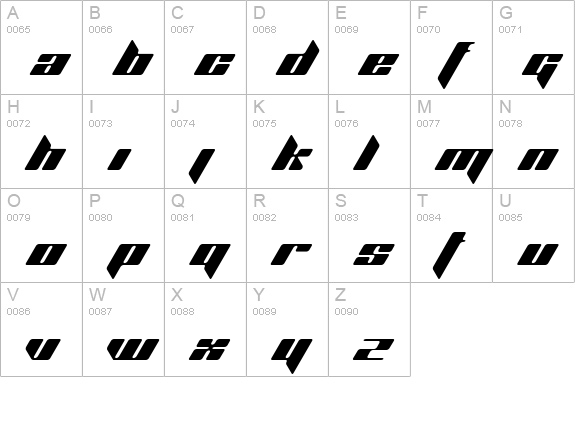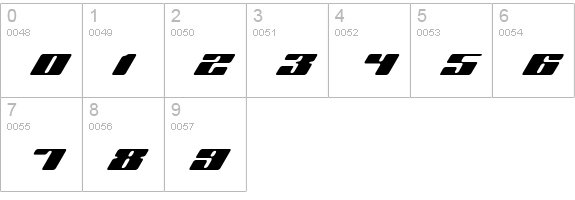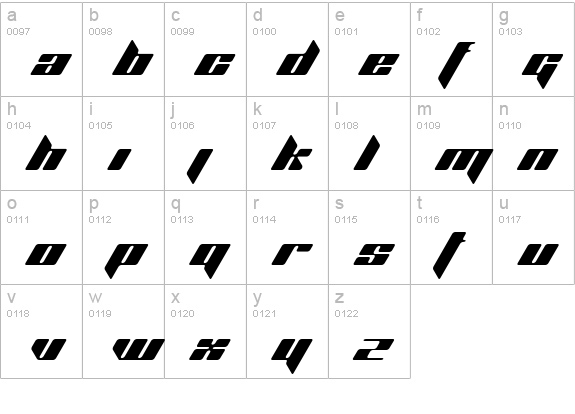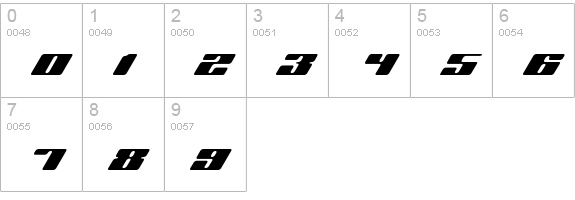
Planet Kosmos is a mesmerizing and futuristic font that will transport you to another dimension. Its sleek and modern design is perfect for projects that require a touch of otherworldly elegance. With its unique letterforms and sharp edges, Planet Kosmos captures the essence of the cosmos, making it ideal for science fiction book covers, movie titles, and digital artwork. But what sets Planet Kosmos apart from other fonts is its accessibility. It is a free font that can be downloaded at FontsMarket.com, allowing designers, artists, and enthusiasts to bring their creative visions to life without any cost. This makes it an invaluable resource for those who are passionate about design but may have budget constraints. The versatility of Planet Kosmos is another reason why it stands out. It can be used in various settings, from print to digital mediums, without losing its impact. Whether you're designing a poster, creating a logo, or crafting a website, Planet Kosmos will elevate your project and add a touch of cosmic magic. The attention to detail in every character of Planet Kosmos is evident, showcasing the dedication and craftsmanship of its creator. Each letter is meticulously crafted to ensure legibility, while still maintaining its futuristic and artistic flair. The result is a font that is both visually stunning and highly functional. In conclusion, Planet Kosmos is a font that combines the wonders of the universe with the practicality of a freely available resource. Its captivating design and accessibility make it a must-have for designers and enthusiasts alike. So, why wait? Head over to FontsMarket.com and download Planet Kosmos today to embark on a cosmic journey of creativity.